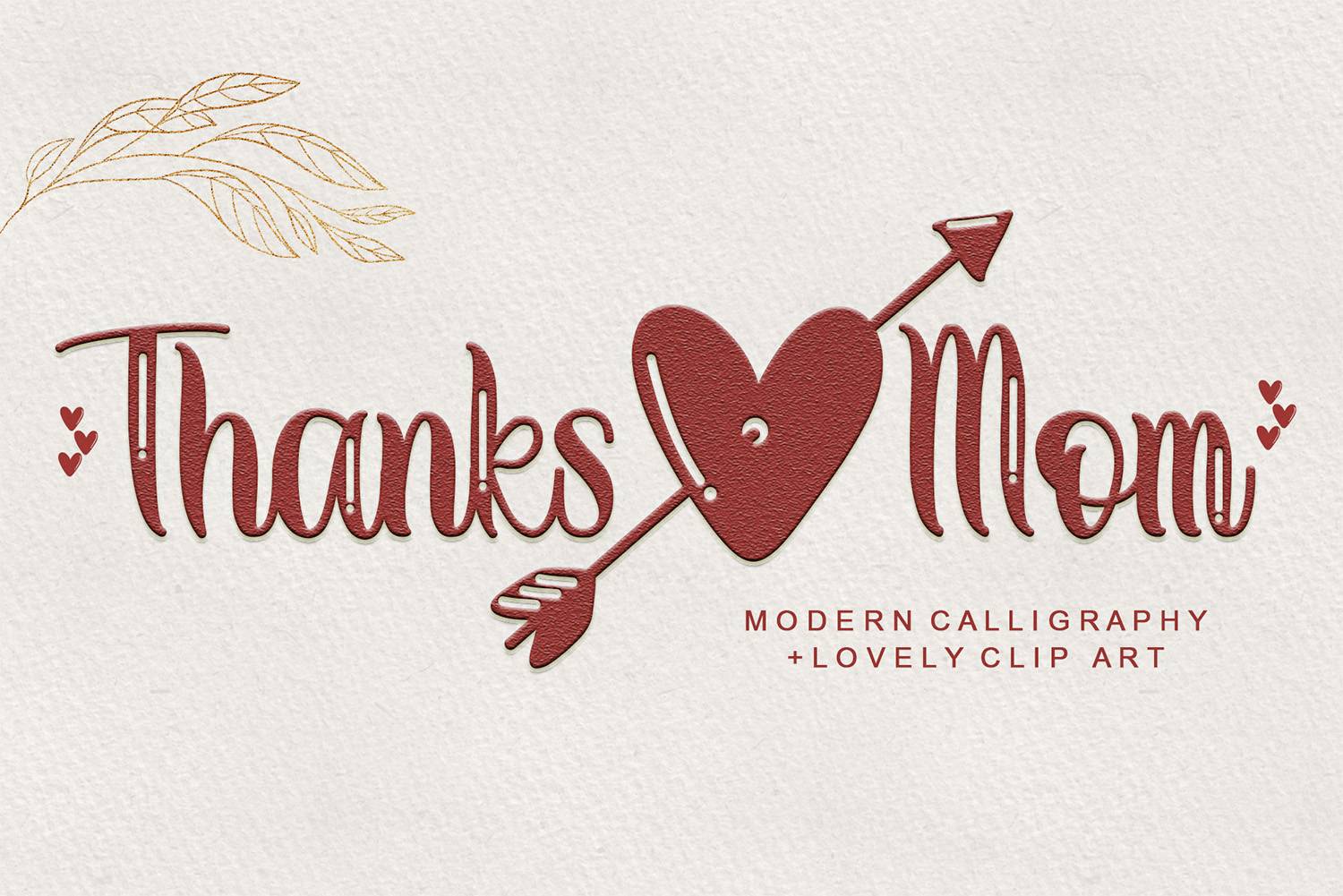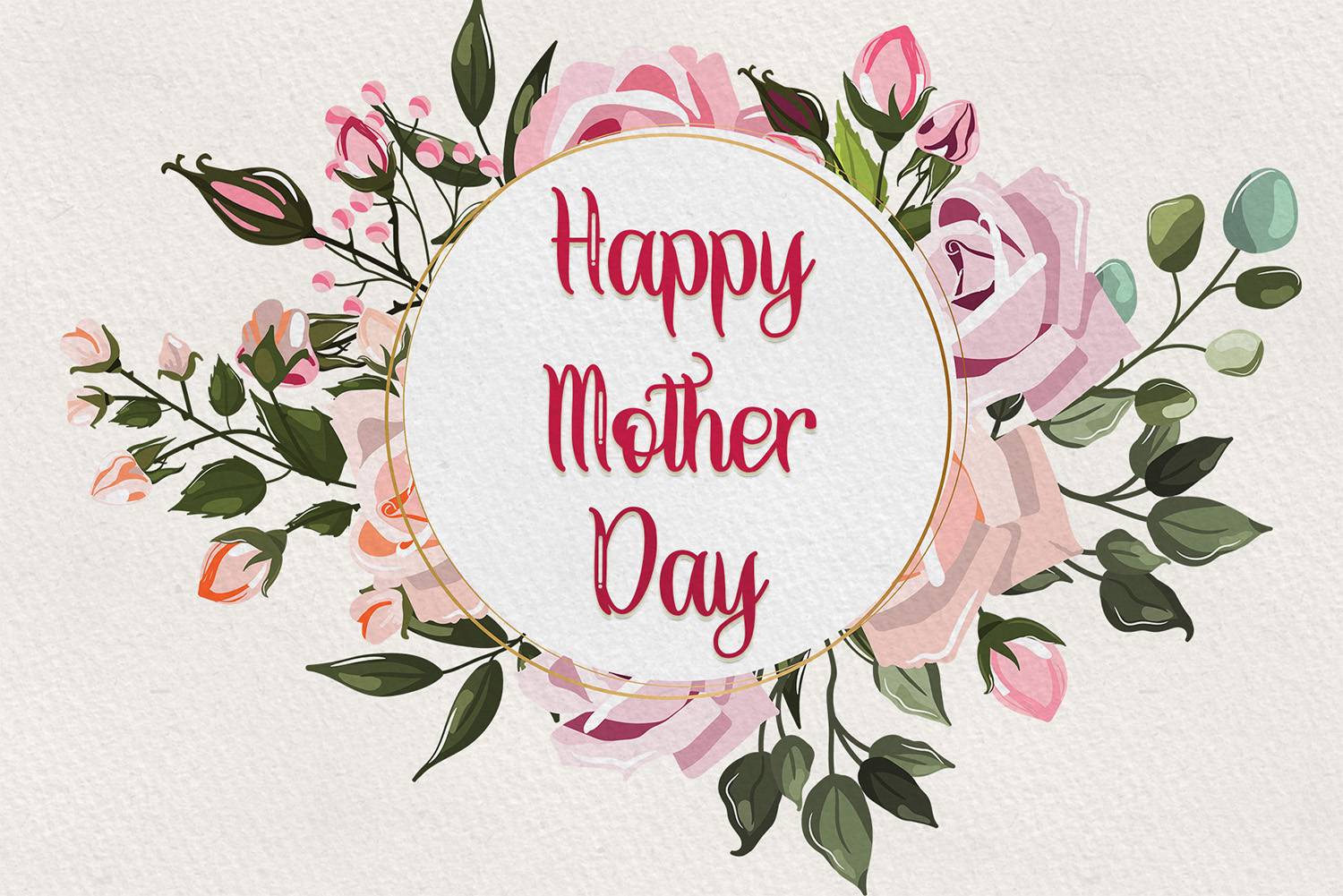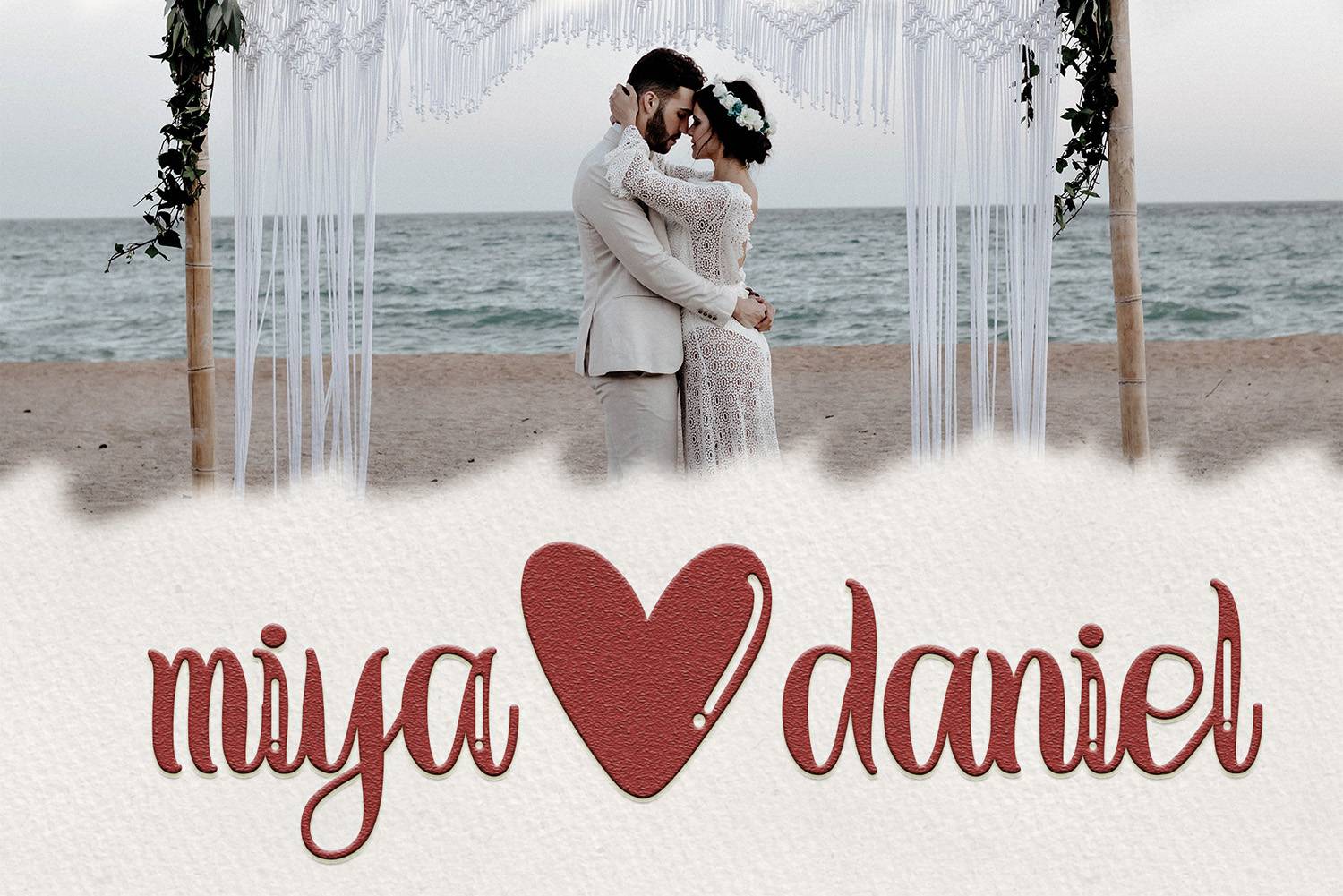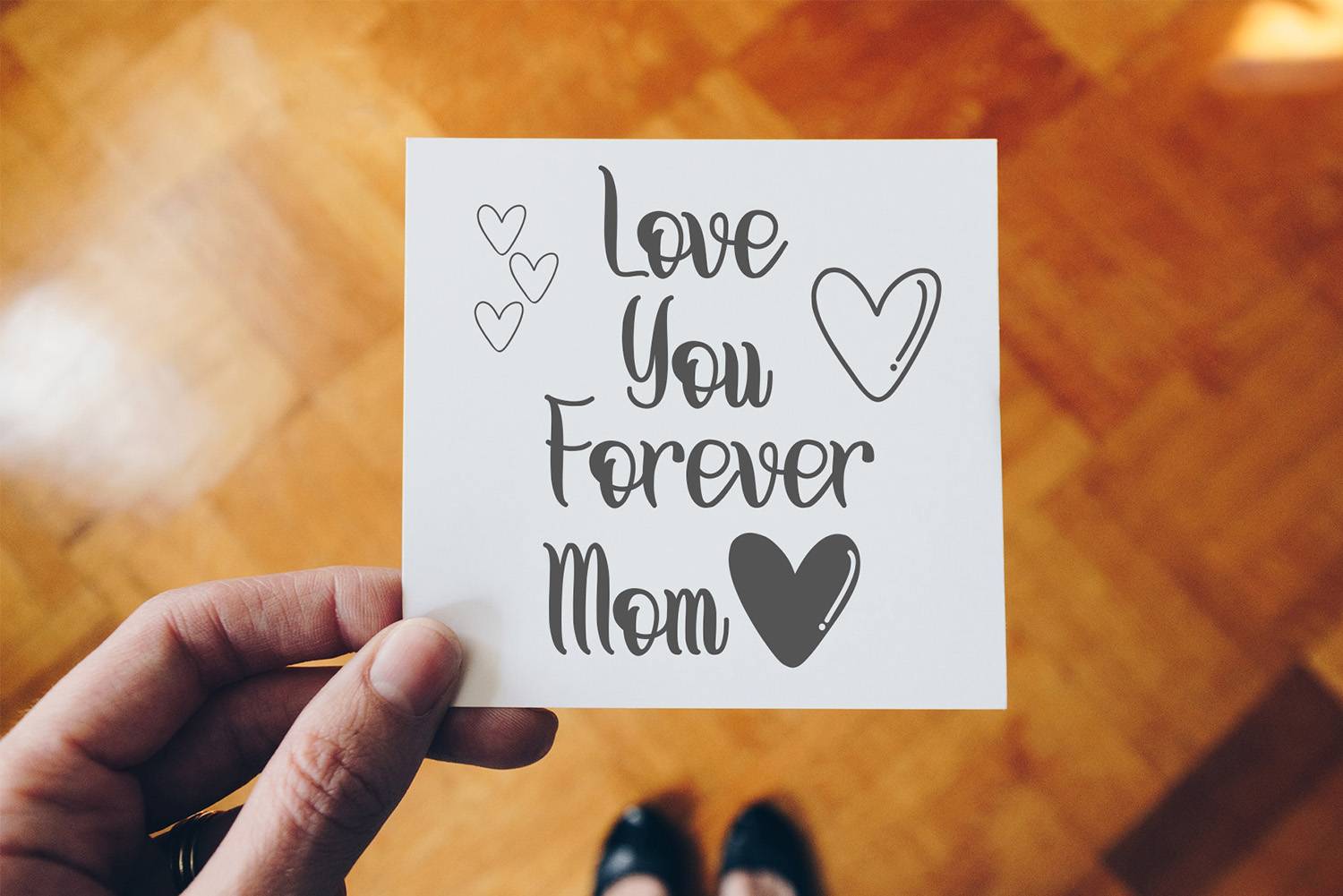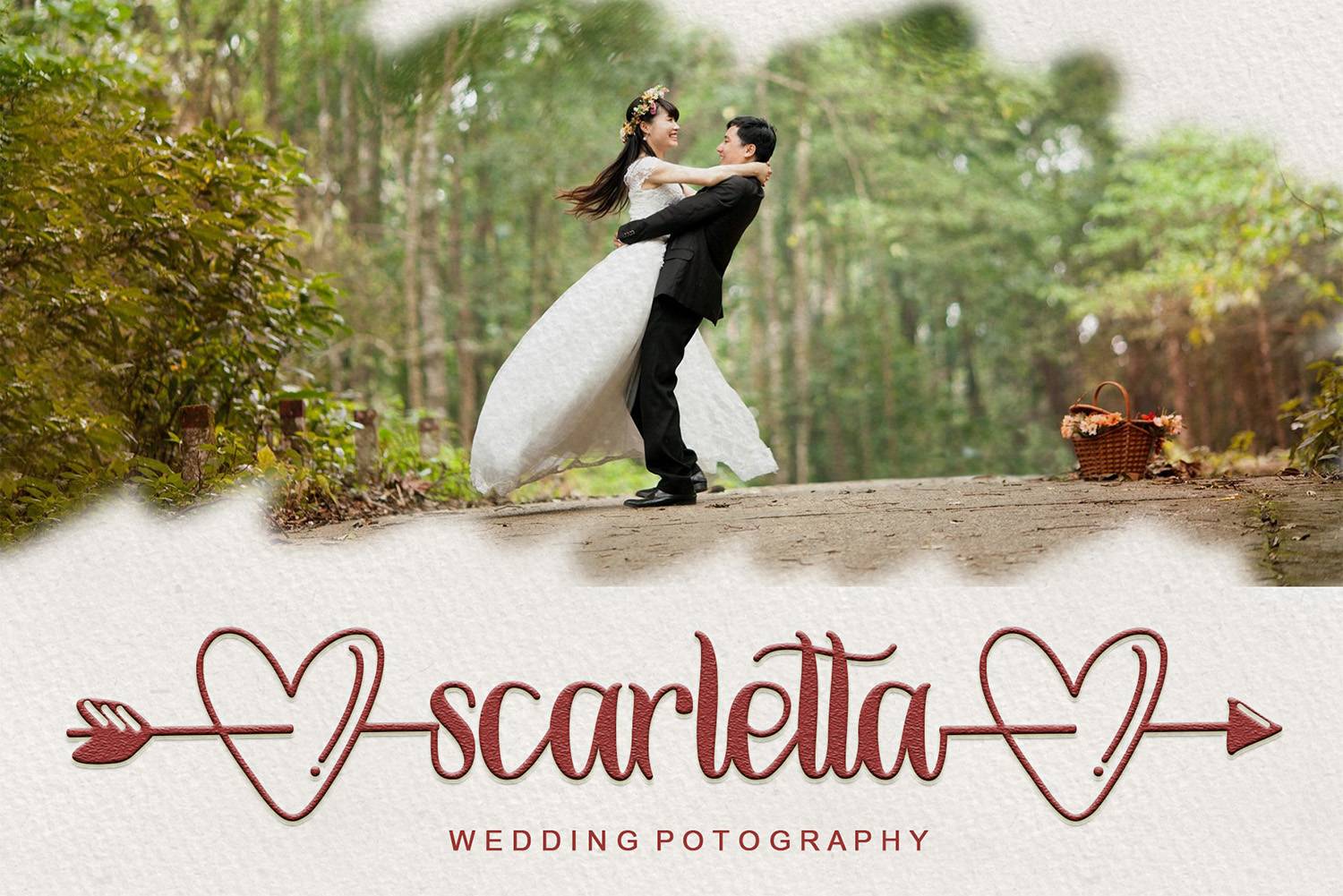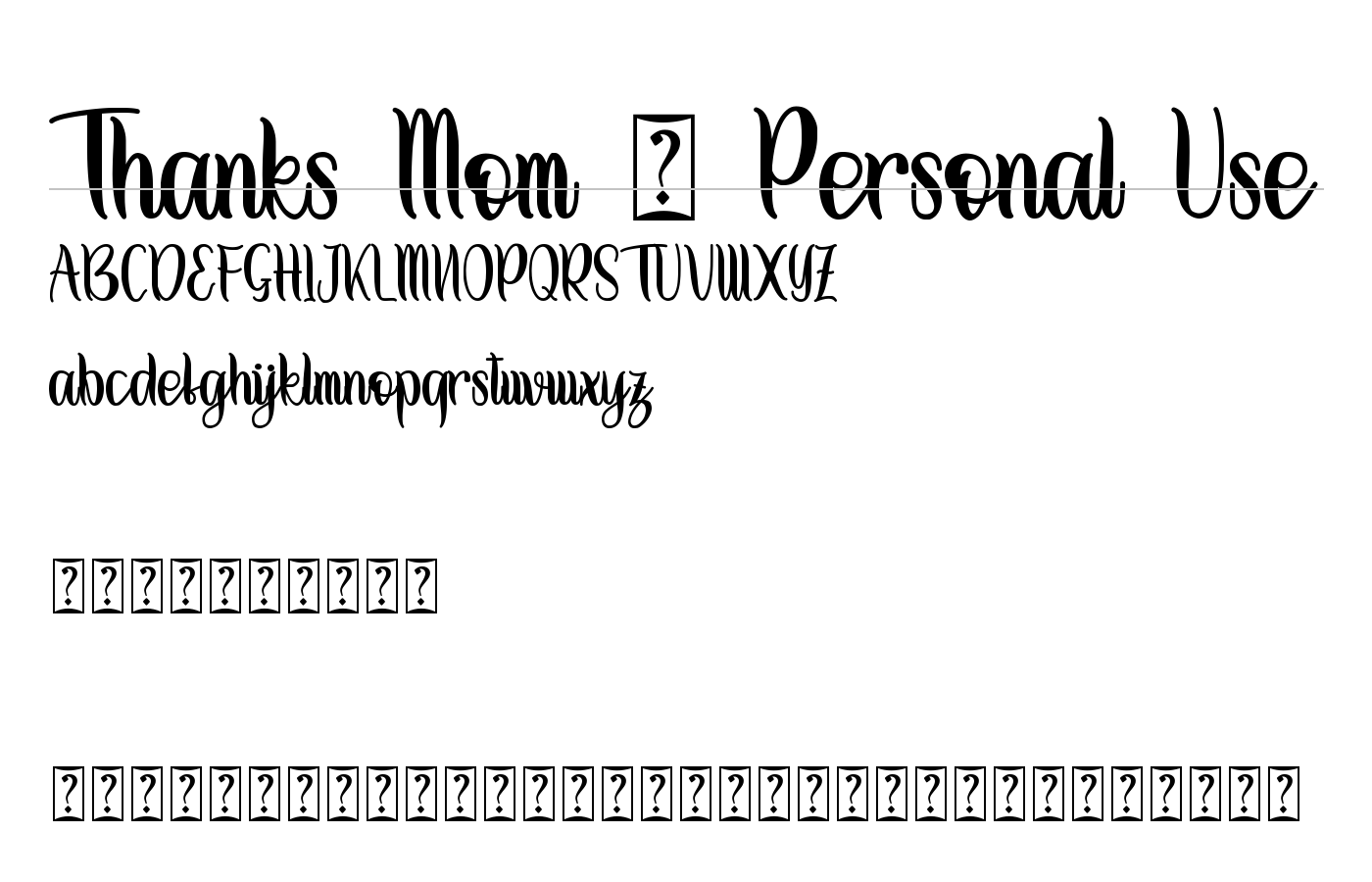
Thanks Mom is a playful and elegant script font featuring tall, narrow letterforms with lively, slightly irregular strokes that give it a hand-drawn charm. Its thin weight and smooth curves evoke a personal, friendly feel, making it ideal for casual designs, greeting cards, and creative branding that seeks warmth and a touch of whimsy. This font works best for headlines, invitations, and projects where a lighthearted, approachable style is desired.
| Font family | Thanks Mom Font |
| Release date | 2021-04-11 |
| Designer | Ahmad Afandi |
| Trademark | Letterafa |